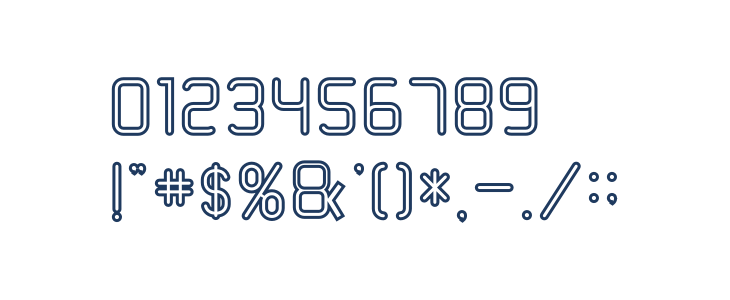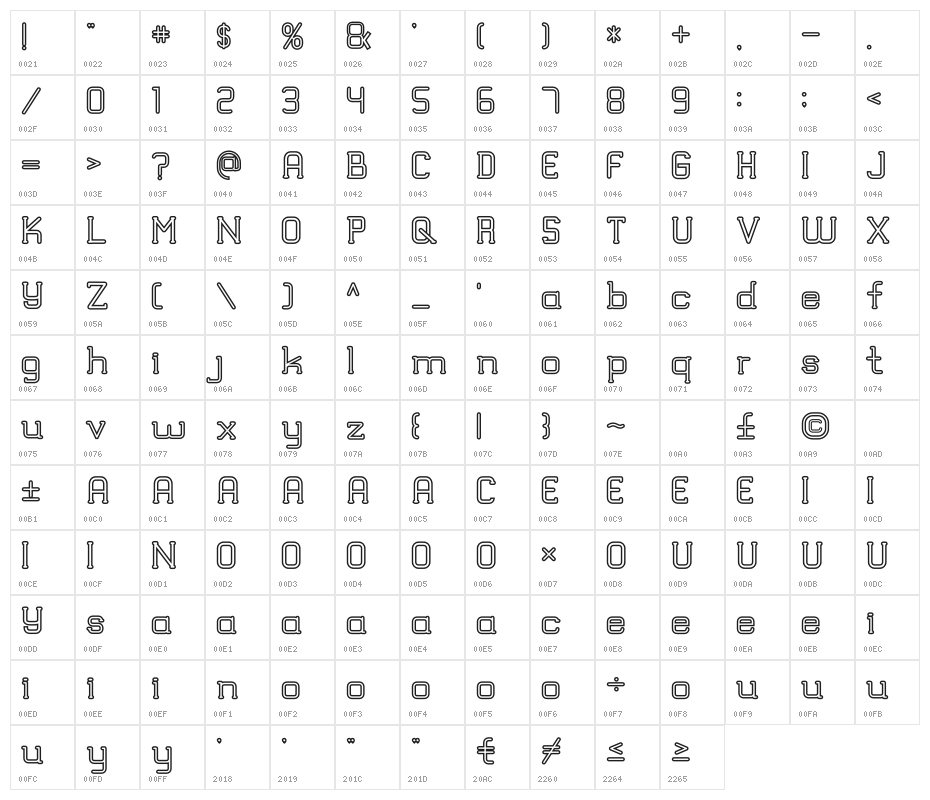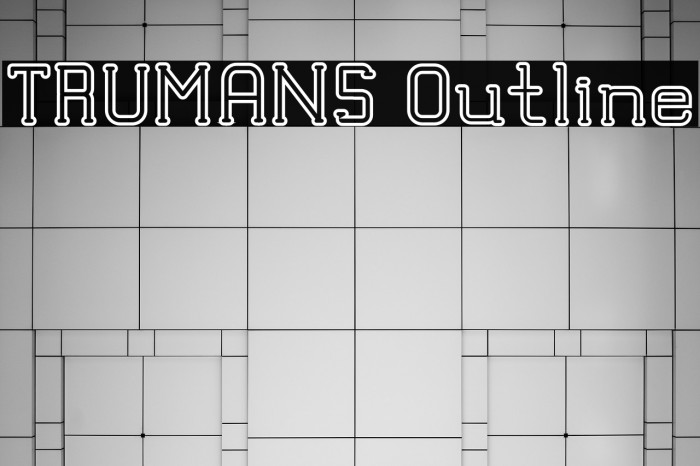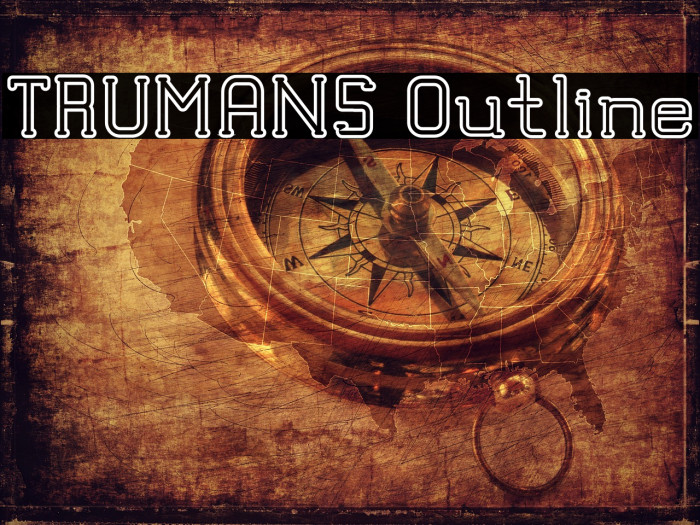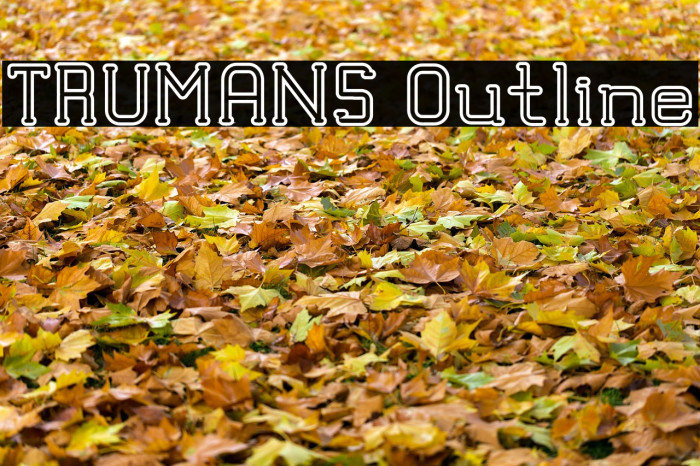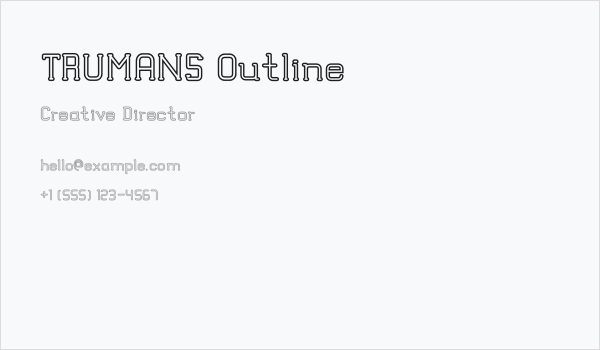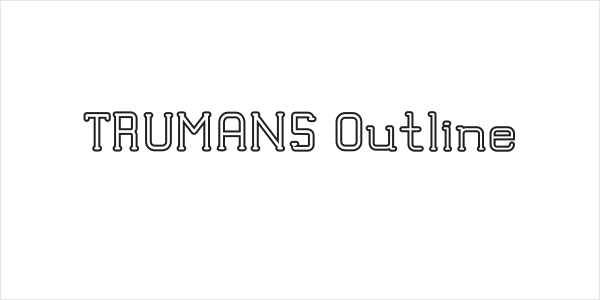
TRUMANS Outline Font
TRUMANS Outline Description
This font features a distinctive outline style, giving it a bold and modern appearance. The characters are structured with a double-line effect, creating a hollow interior that adds depth and dimension. The uppercase and lowercase letters maintain a consistent height and width, ensuring uniformity across the text. The numerals and special characters follow the same design principles, making them easily recognizable and visually appealing. The overall design is clean and geometric, with smooth curves and straight lines that contribute to its contemporary aesthetic. This font is versatile, suitable for various design projects that require a striking and unique look.
A modern, outlined font with a bold, geometric style from Uncategorized fonts.
• Proposed Projects: Ideal for headlines, posters, branding, and digital media where a standout, modern look is desired.